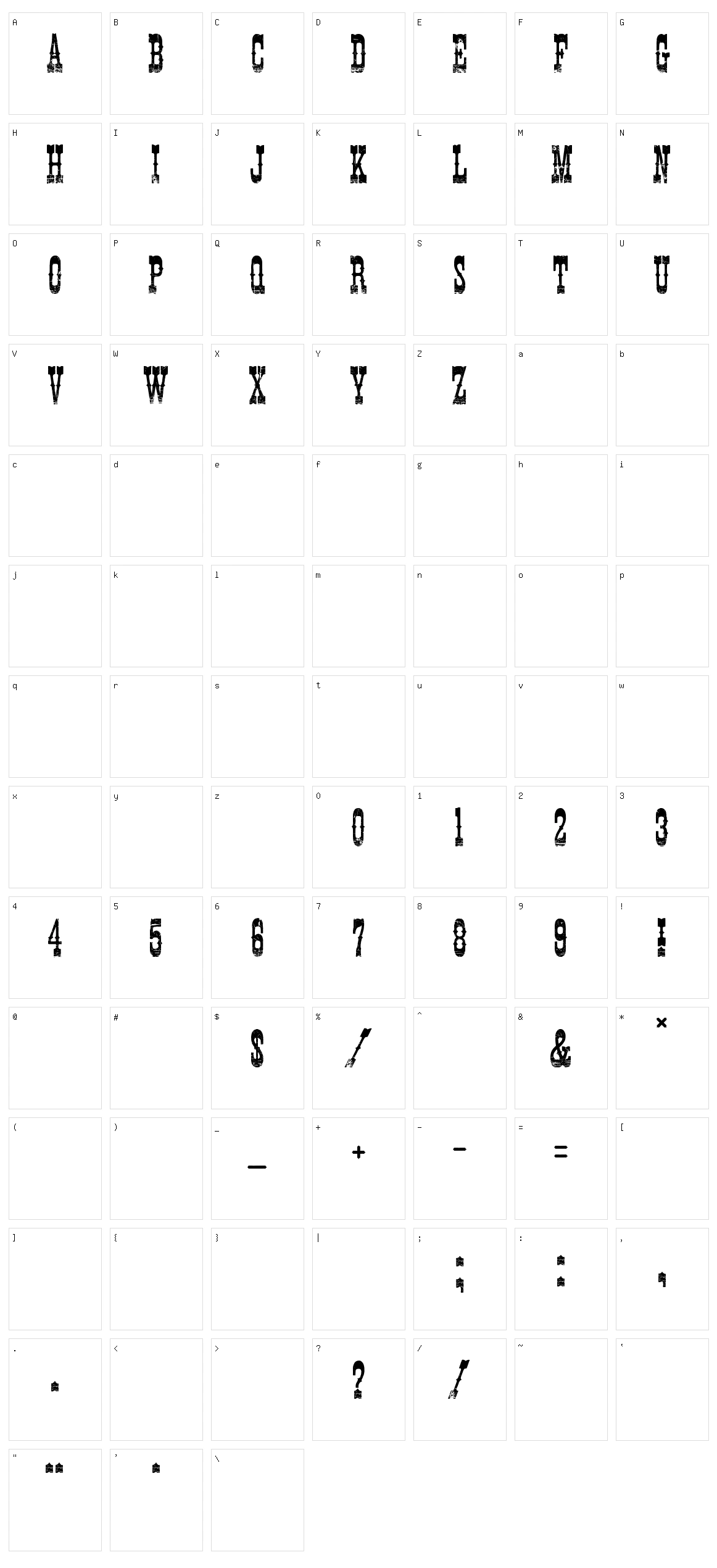
The free font Cowboy Movie is carefully designed by imagex, showcasing a thoughtful balance of creativity and usability and falls under the Western font style. When you download the ZIP file, it contains only 64.18 KB of font files, making it lightweight and quick to download. Please review the license details below to understand permitted usage and distribution rights. If license information is not available, we recommend using this font for personal projects only or contacting the author directly for commercial usage permissions.